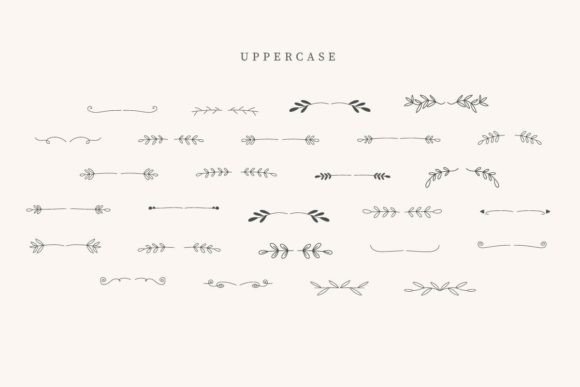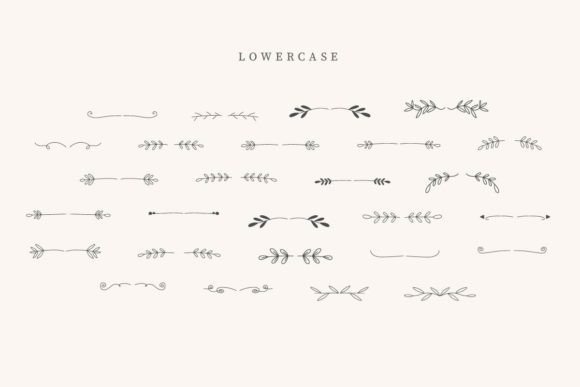
The Bunny Divider Font: A Designer’s New Best Friend
I’ll never forget the time I was working on a project for a client who wanted a custom wedding invitation design. I had the perfect concept in mind, but I was struggling to find the right font to complement the ornate illustrations. That’s when I stumbled upon the Bunny Divider font, and it completely transformed my design. In this article, I’ll share my experience with this beautiful dingbat font and provide a comprehensive guide on how to use it.
• ✨ Beautiful ornamental foliage illustrations that add a touch of elegance to any design
• ✅ Extensive glyphs and OpenType features that offer endless creative possibilities
• ✅ Highly versatile and suitable for various design needs, including t-shirts, logos, decorations, and more
• ✅ Easy to use and navigate, even for beginners
While I absolutely love the Bunny Divider font, there are a few minor quirks to be aware of:
• ⚠️ Some glyphs may not work seamlessly with certain software or platforms, so it’s essential to test them before finalizing your design
• 🤔 The font may not be suitable for body text or long paragraphs, as it’s primarily designed for decorative purposes
The Designer Inspiration Behind Bunny Divider
The Bunny Divider font was created by a talented designer who drew inspiration from the natural world and the art of illustration. With a passion for crafting unique and beautiful fonts, the designer aimed to create a dingbat font that would bring a touch of elegance and sophistication to any design.
Q: What is the Bunny Divider font suitable for?
A: The Bunny Divider font is suitable for various design needs, including t-shirts, logos, decorations, clip art, stickers, planners, journals, scrapbooks, invitations, birthdays, weddings, and more.
Q: Is Bunny Divider a script font?
A: No, Bunny Divider is a dingbat font with ornamental foliage illustrations, rather than a script font.